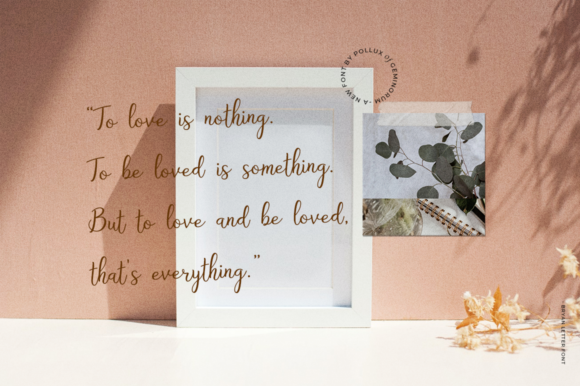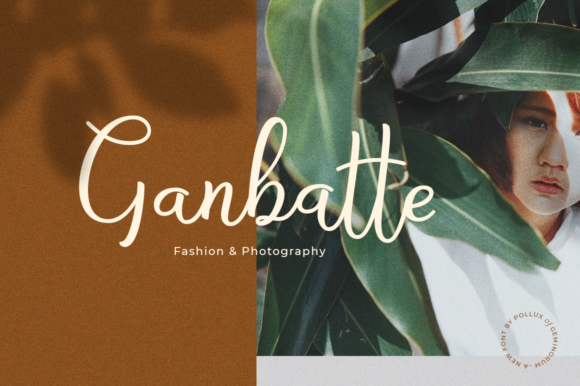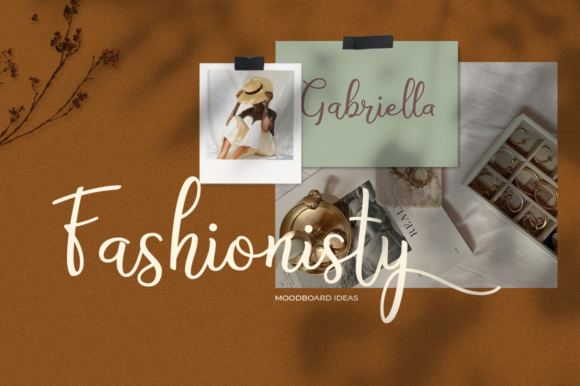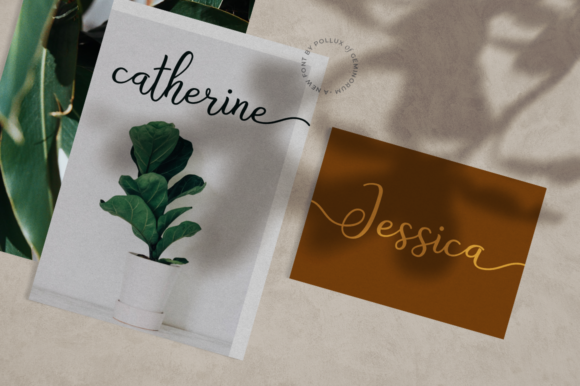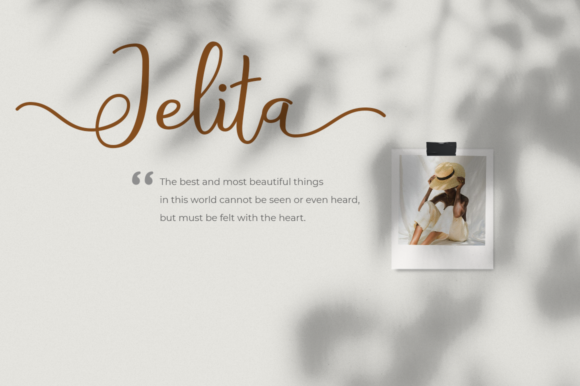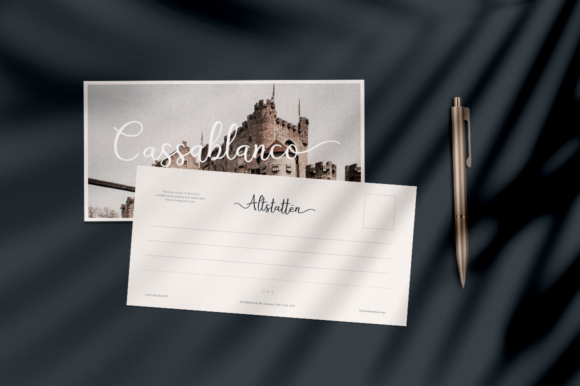
Introduction to Bryan Letter Font
Bryan Letter is an exquisite handwritten font, masterfully designed to become a true favorite.
Bryan Letter Font offers exceptional quality and versatility, making it a valuable addition to your design toolkit. Whether you’re creating for personal projects or commercial use, Bryan Letter Font delivers professional results.